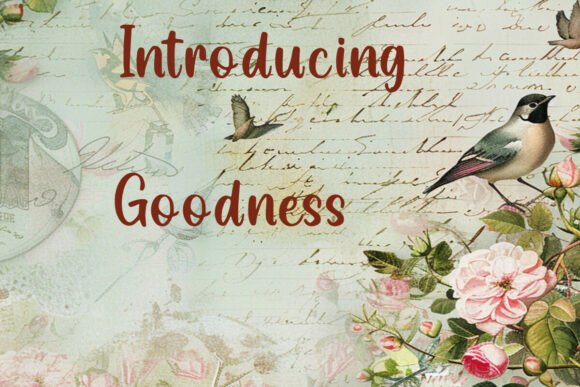
Introducing Goodness Font: Elevate Your Designs with Versatility and Charm
In the world of typography, a font can make all the difference in the success of a design project. Whether you’re a seasoned designer or a DIY enthusiast, finding the right font can be a daunting task. That’s where Goodness Font comes in – a versatile and charming font designed to energize your t-shirt designs, invigorate your brand identity, captivate readers in your magazines, or add flair to your SVG files.
Key Features of Goodness Font
- Versatility: Goodness Font is designed to be used across various platforms and mediums, from digital to print.
- Charm: Its unique style adds a touch of elegance and sophistication to any design.
- Legibility: Goodness Font is optimized for readability, making it perfect for body text and headlines.
Endless Design Possibilities with Goodness Font
Goodness Font is not just limited to one or two design applications. Its versatility makes it an excellent choice for various projects, including:
- T-shirt designs: Create eye-catching and stylish tees that stand out from the crowd.
- Brand identity: Develop a strong brand presence with Goodness Font’s unique and memorable style.
- Magazines and publications: Engage your readers with a font that is both elegant and easy to read.
- SVG files: Add a touch of sophistication to your vector graphics and illustrations.
Goodness Font: A Visual Storyteller
Goodness Font is more than just a collection of letters and symbols. It’s a visual storyteller that can help you convey your message and bring your creative projects to life.
With Goodness Font, you can:
- Amplify your message: Use Goodness Font to add emphasis and importance to your words.
- Create an emotional connection: Goodness Font’s unique style can help you connect with your audience on a deeper level.
- Stand out from the crowd: Use Goodness Font to differentiate yourself and make your designs more memorable.
Getting the Most Out of Goodness Font: Tips and Tricks
To make the most of Goodness Font, here are some tips and tricks to keep in mind:
- Experiment with different sizes and colors: Find the perfect combination to make your design pop.
- Pair Goodness Font with other fonts: Create a unique and visually appealing combination.
- Use Goodness Font consistently: Establish a strong brand identity by using Goodness Font across all your designs.
In conclusion, Goodness Font is a versatile and charming font that can elevate your designs and bring your creative projects to life. Its endless design possibilities, legibility, and unique style make it an excellent choice for various applications, from t-shirt designs to social media posts.